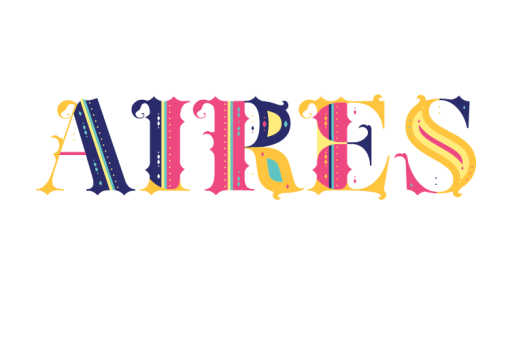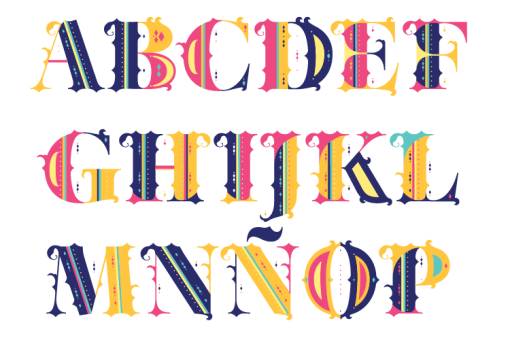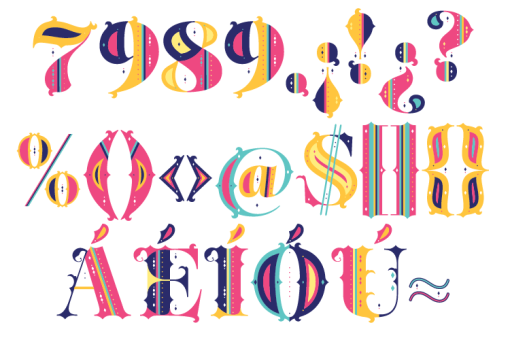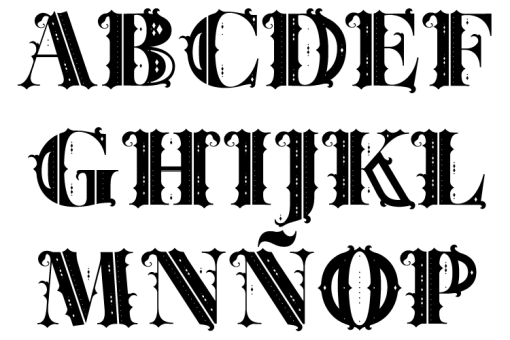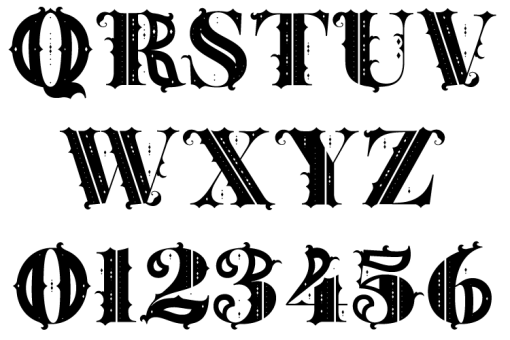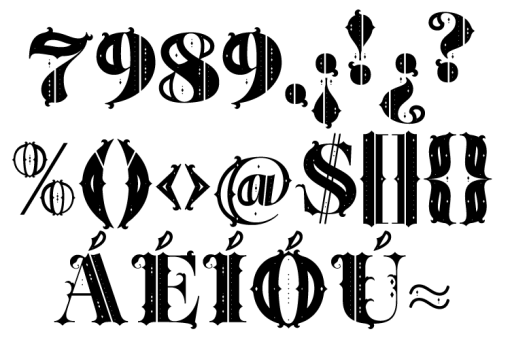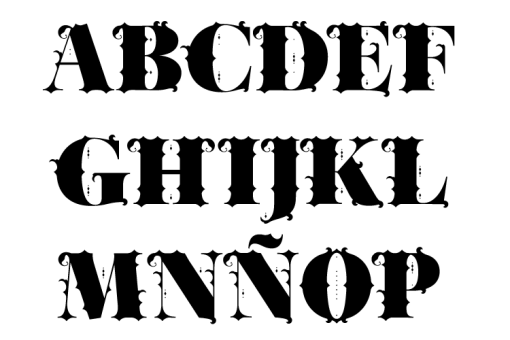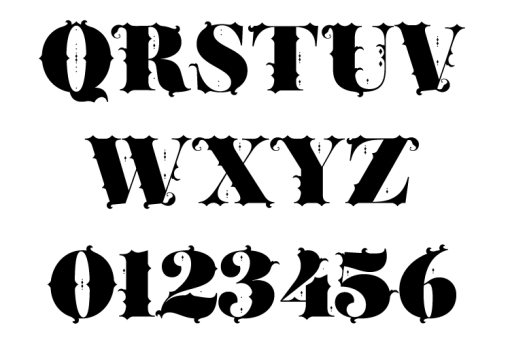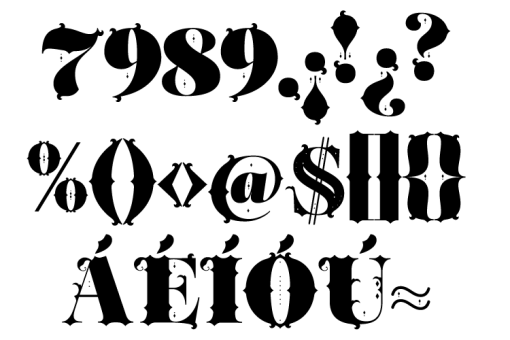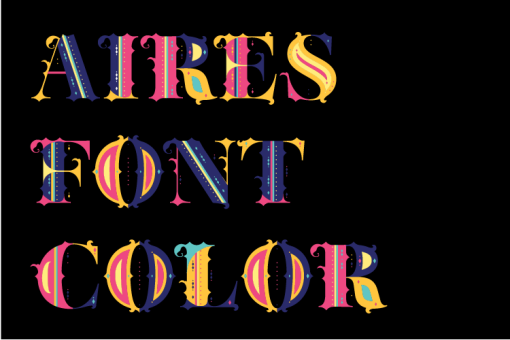
Aires
This font is inspired by the decorative and popular art born at the beginning of the twentieth century in Buenos Aires, Argentina. Includes a poster with the signs in vector. And a OpenType file which means this font will show up only in apps that are compatible with color bitmap fonts, like Adobe Photoshop CC 2017.0. For more information to install this font: https://helpx.adobe.com/typekit/using/ot-svg-color-fonts.html